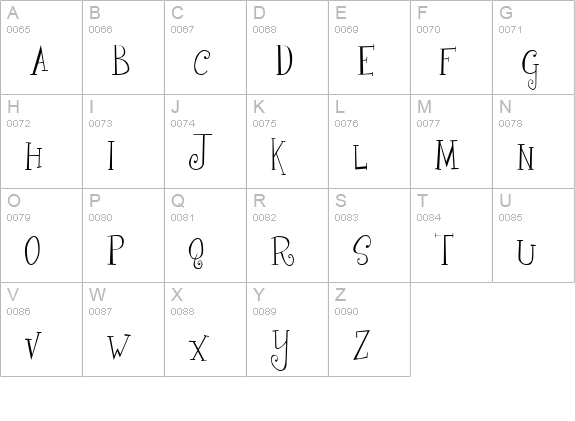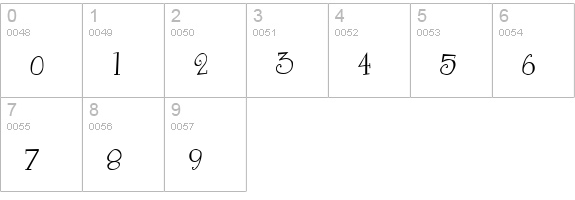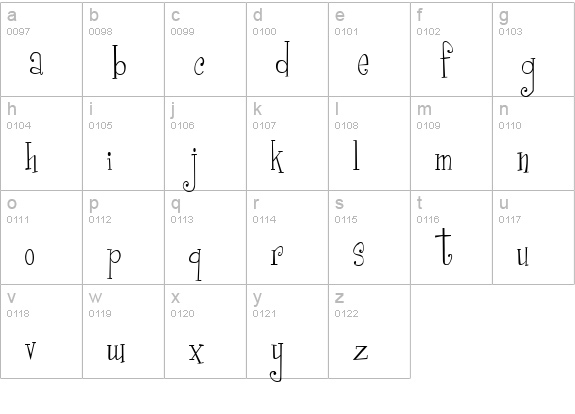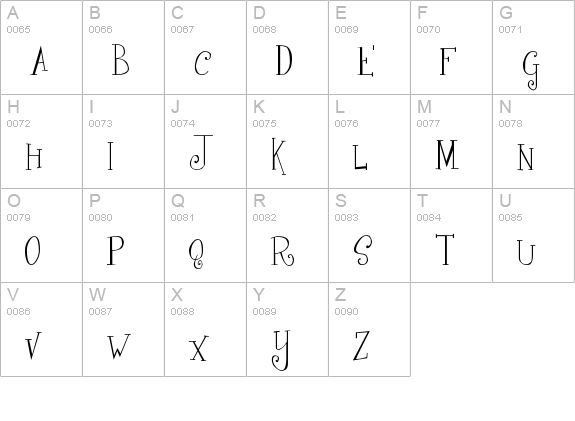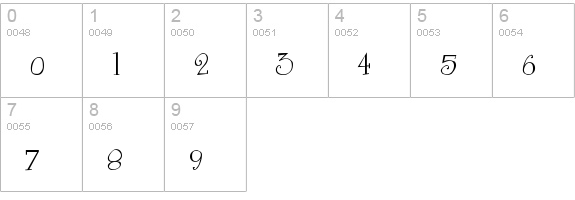
Girls are Weird Font Details
Girls are Weird font is a whimsical and playful typeface that perfectly captures the fun and quirky essence of feminine style. With its charming loops and curls, this font adds a touch of creativity to any project. Whether you're designing a greeting card, invitation, or social media post, Girls are Weird font will bring a sense of whimsy and charm to your work. The best part? Girls are Weird font is available for free download at FontsMarket.com. You can easily add this delightful font to your collection and start creating eye-catching designs without spending a dime. So why wait? Download Girls are Weird font today and let your creativity run wild!